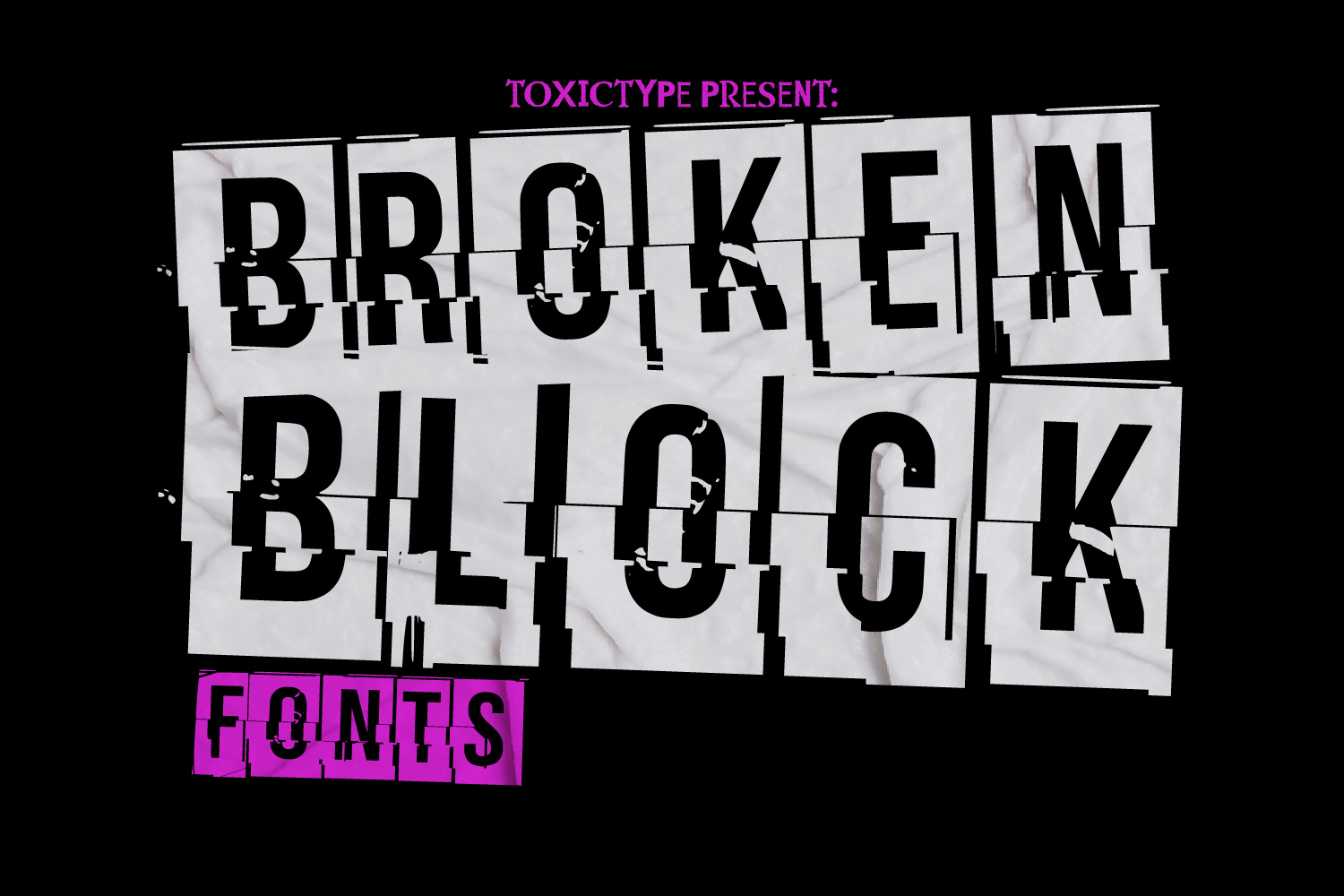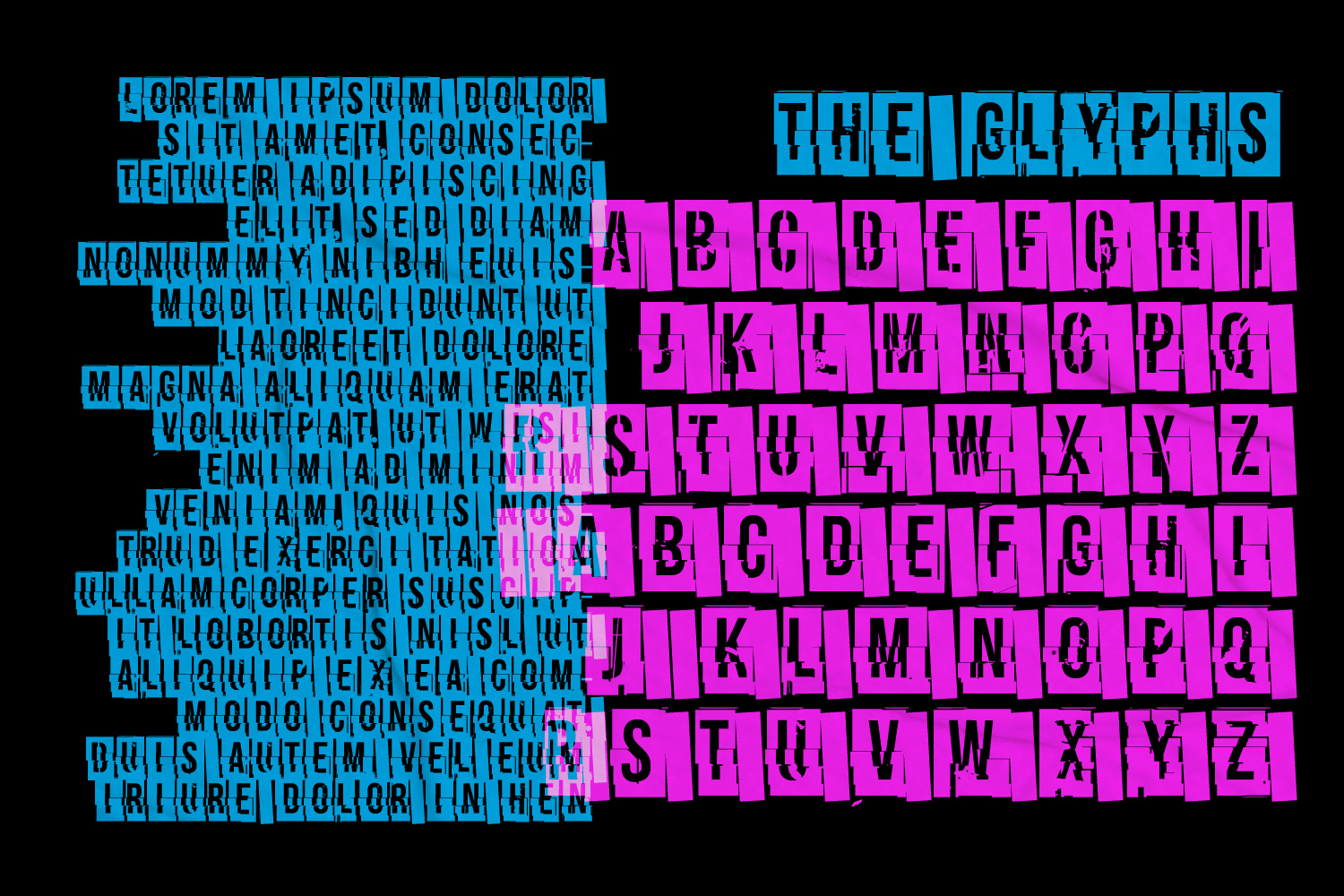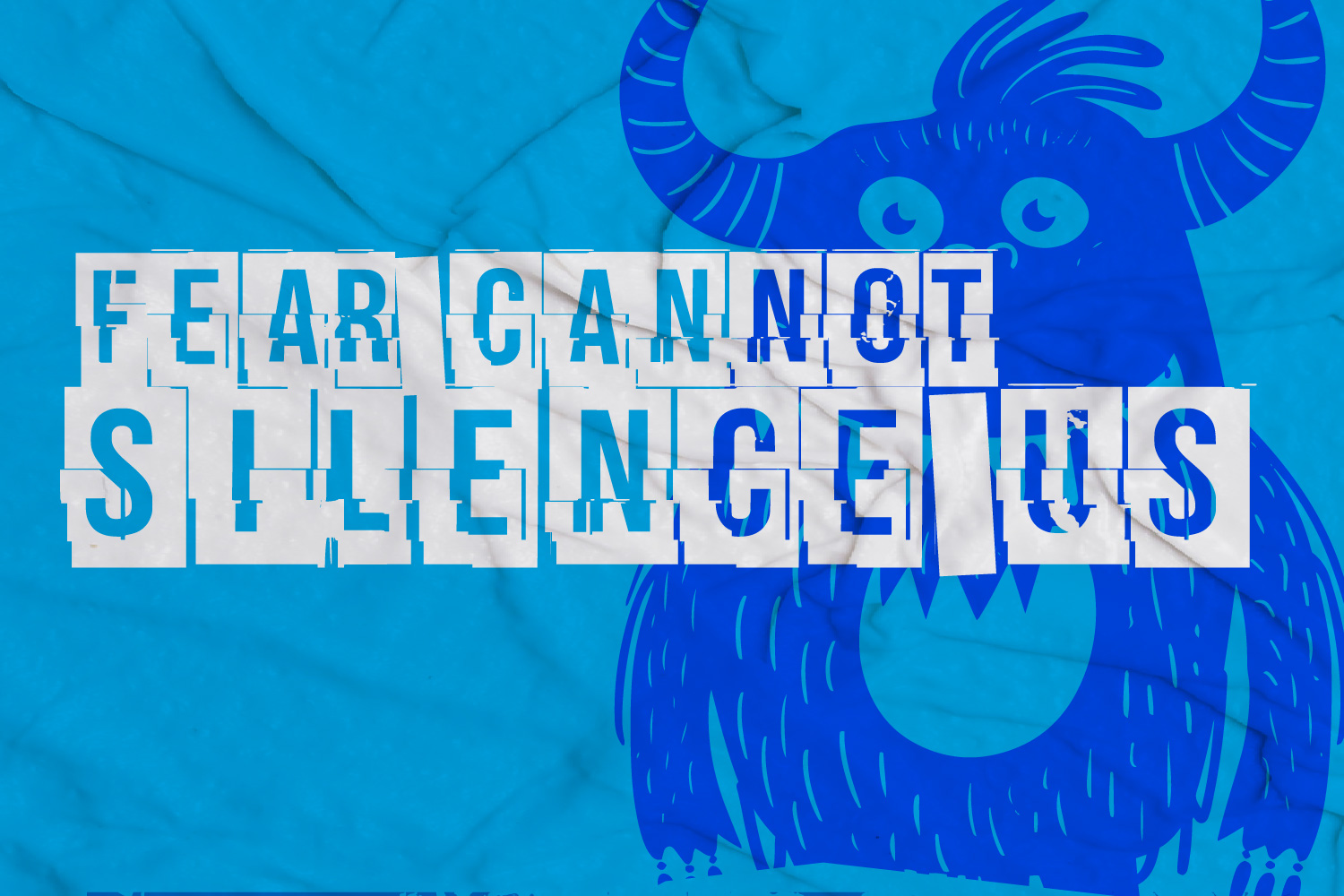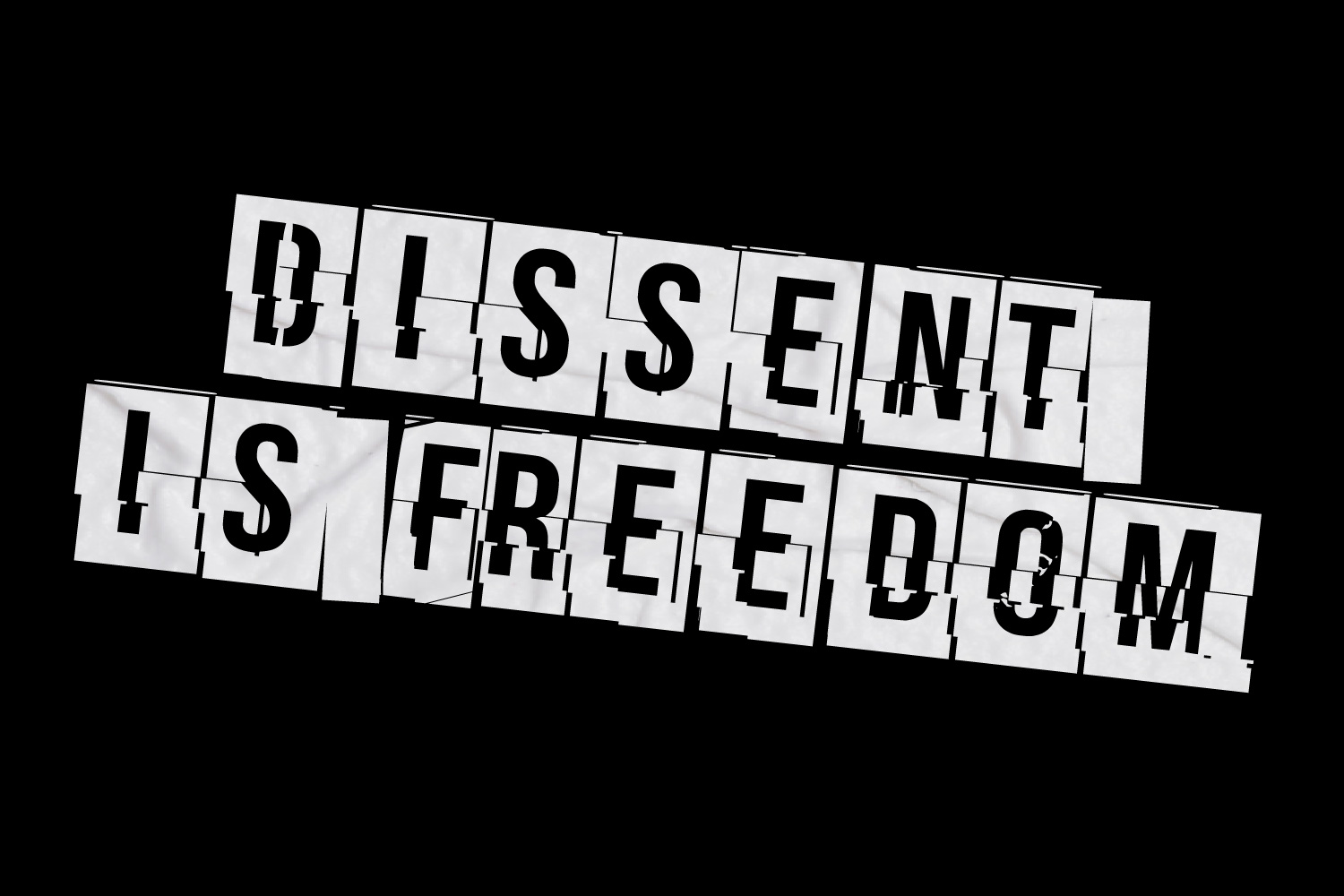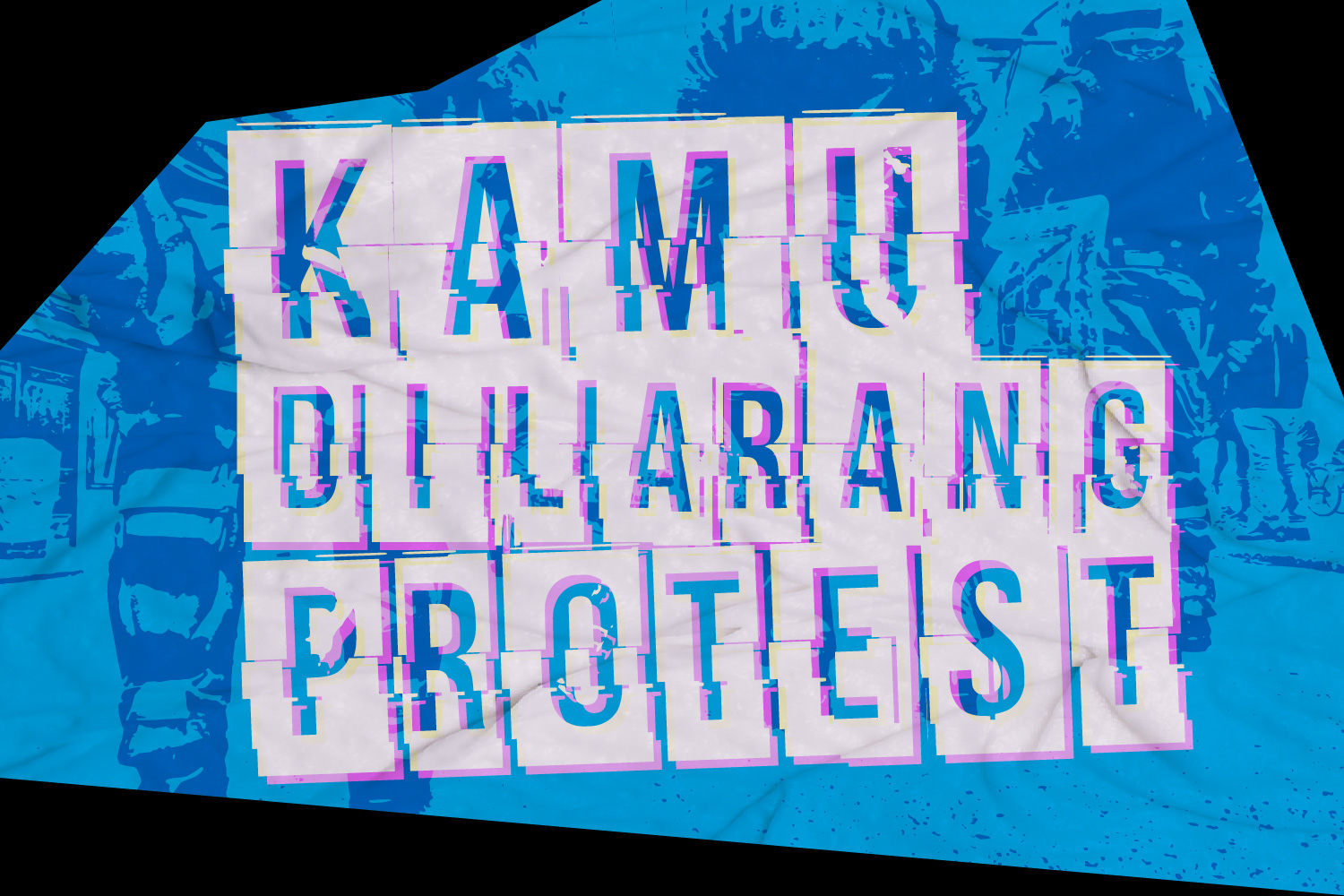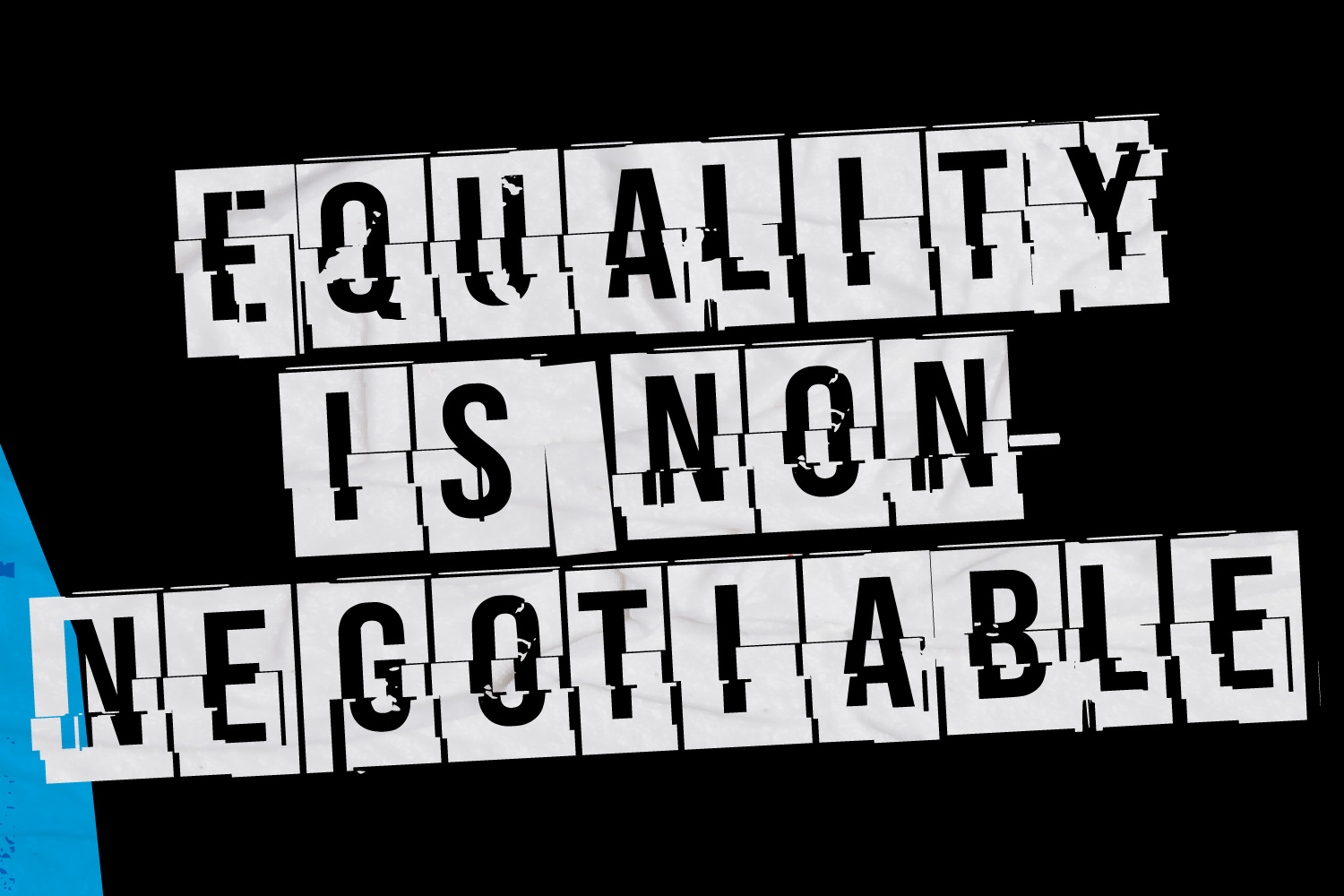
Broken Block is a bold collage-style display font with a raw, cut-and-paste aesthetic. Inspired by DIY zines, torn posters, and punk flyers, this typeface mixes grunge energy and chaotic texture, perfect for music covers, protest visuals, and street-style graphics.